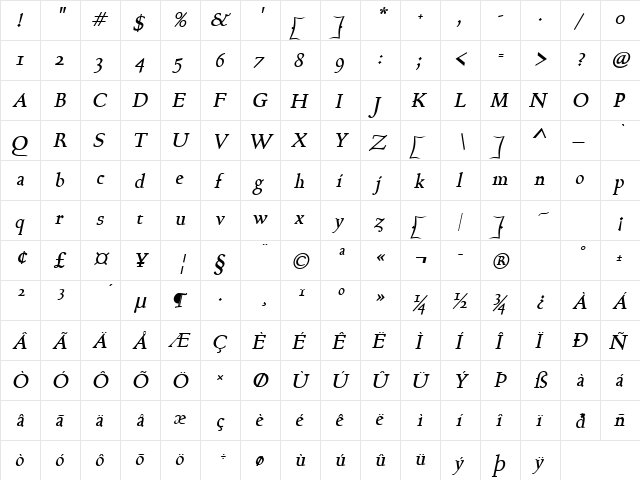
Bravo Bold Italic
Design Context for Bravo Typeface
Bravo is a composed and adaptable typeface that performs quietly and consistently across a wide range of design contexts. The dynamic lean of this cut emphasises speed and emphasis in any layout. Its bold stroke weight gives it real presence on the page.
Pro Tip: Try Bravo for annotation and caption copy alongside an upright companion — the contrast in angle creates a dynamic but ordered typographic system.